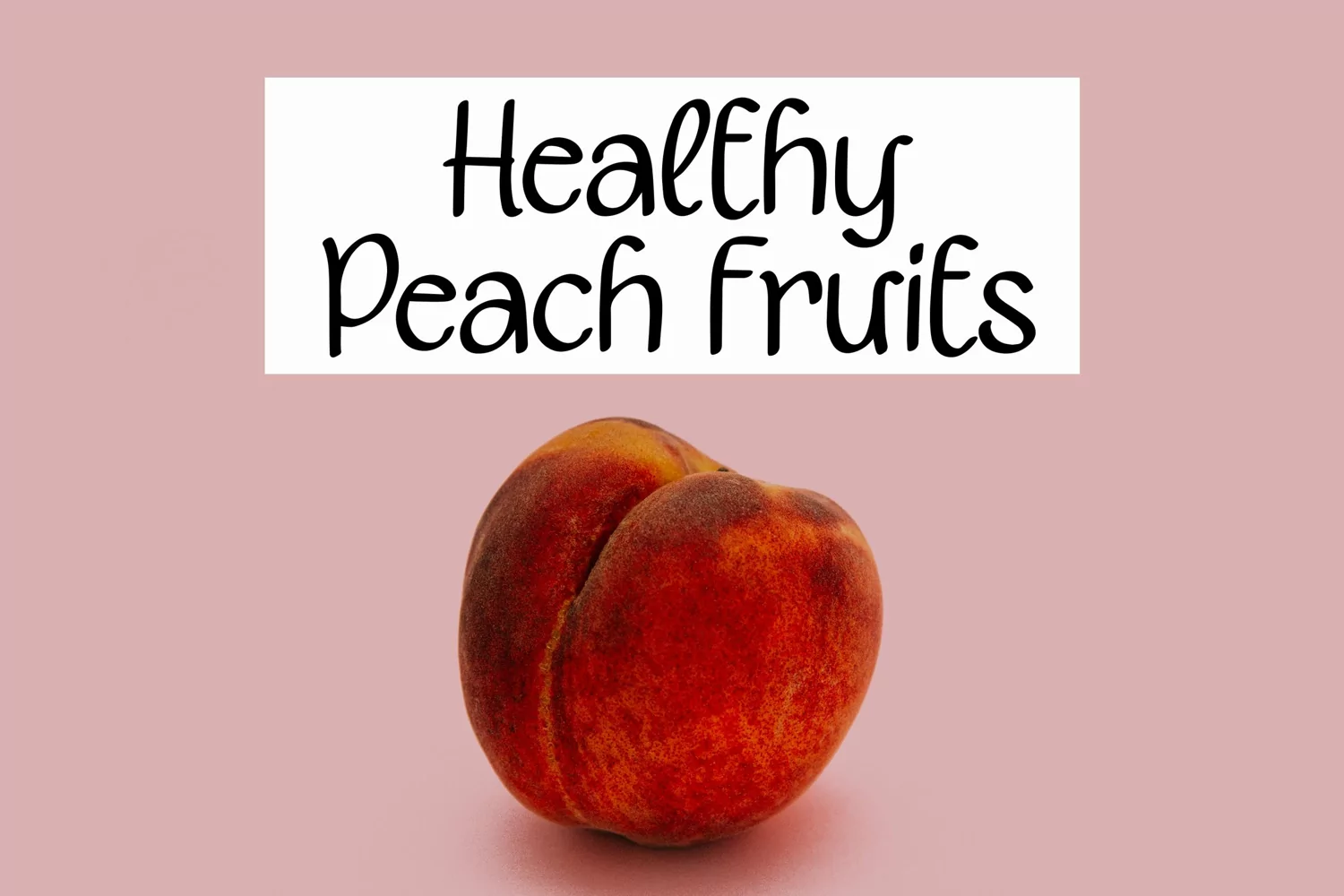
Peach Berry - A Cute Hand drawn Font that contain lowercase, uppercase, symbol, and also support multi language. There’s a lot ligatures in this font. This Font also comes with ligatures, alternates and many more. this font suitable for fashion, branding, catalog and other design what you want.